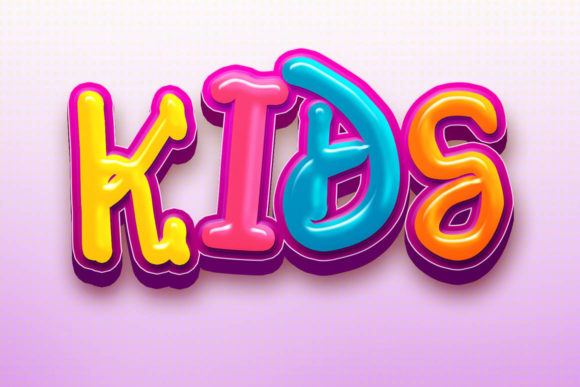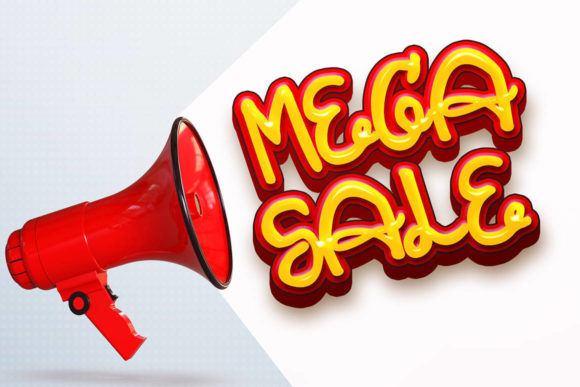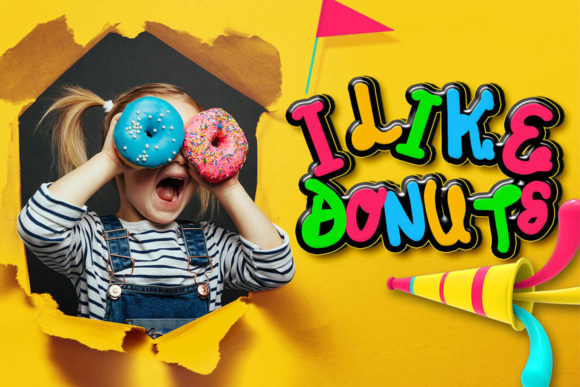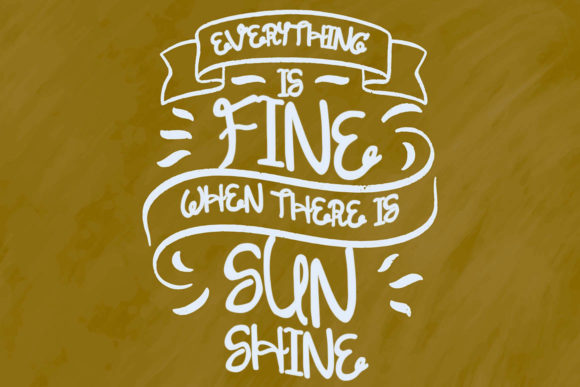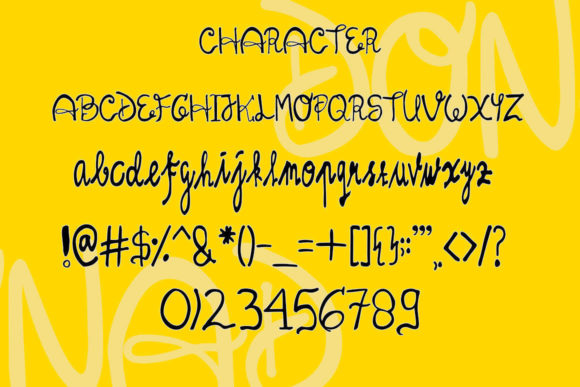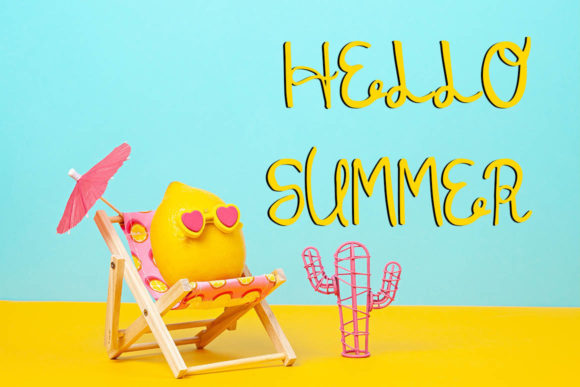
Introduction to Donad Font
Have you ever been working on a creative project, and you just can’t seem to find the perfect font to bring it to life? That was me last week when I was designing a logo for a kids’ book. I wanted something that would capture the playfulness and innocence of childhood, and then I stumbled upon the Donad Font.
This adorable display font is more than just a pretty face – it’s a game-changer for designers looking to add a touch of whimsy to their designs. With its chunky letters and bright colors, Donad Font is the perfect choice for any creative project, from children’s activities to school projects. And the best part? It’s available for free download, making it an invaluable design resource for anyone looking to elevate their work.
- Unique, stylish design that can elevate any creative project or design resource
Honest Review: Donad Font
As a designer, I’m always on the lookout for high-quality design resources to elevate my creative projects. Recently, I came across the Donad Font, and I’m excited to share my honest review with you.
- ✨ The Donad Font offers a wide range of stylish and modern fonts that can add a touch of elegance to any design project.
- ⚠️ Some of the fonts may not be as versatile as others, limiting their use in certain design projects.
Overall, the Donad Font is a great addition to any designer’s toolkit. While it may have some limitations, its high-quality fonts and free download make it an excellent resource for designers working on creative projects. I would definitely recommend it to anyone looking for a reliable and stylish font resource.
Getting the Most Out of Donad Font
To get the most out of the Donad Font, make sure to:
- Use it with a transparent background for a clean and modern look.
- Experiment with different font sizes and colors to match your creative project’s tone and style.
- Combine it with other high-quality design resources for a cohesive and professional design.
The Donad Font is perfect for:
- Creating social media graphics and posts.
- Designing presentations and reports.
- Developing branding materials, such as logos and business cards.
Is the Donad Font suitable for use in high-resolution designs?
Yes, the Donad Font is designed to be high-quality and suitable for use in high-resolution designs. It features crisp and clear typography, making it perfect for use in print materials, such as business cards, brochures, and posters. The font’s high-resolution capabilities also make it ideal for use in digital designs, such as web graphics and mobile apps.